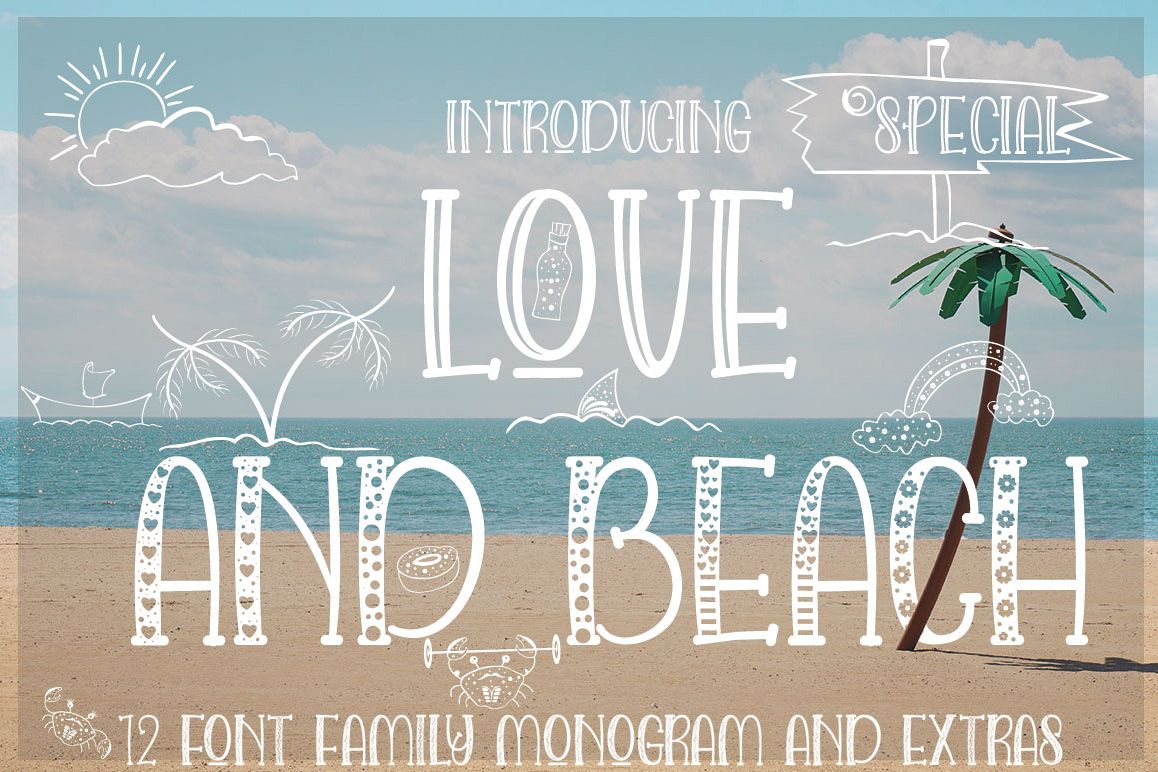
LOVE AND BEACH
LOVE AND BEACH This font was designed by handwriting, and it has a modern
and unique forms of calligraphy, the writing style is very natural and multiple